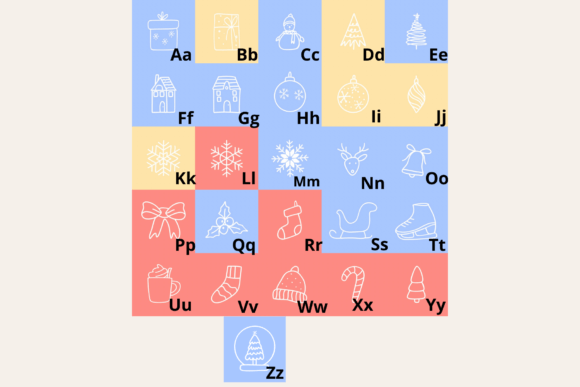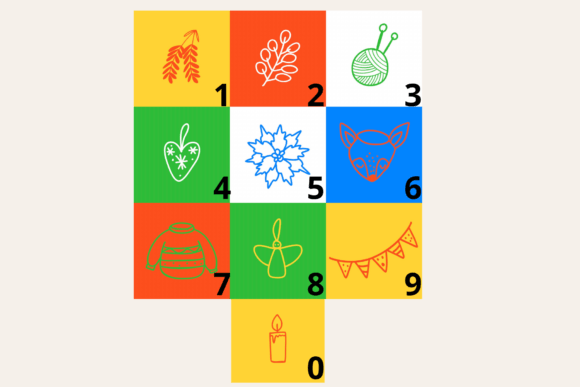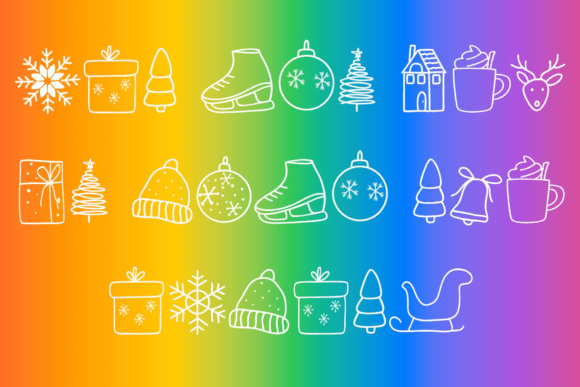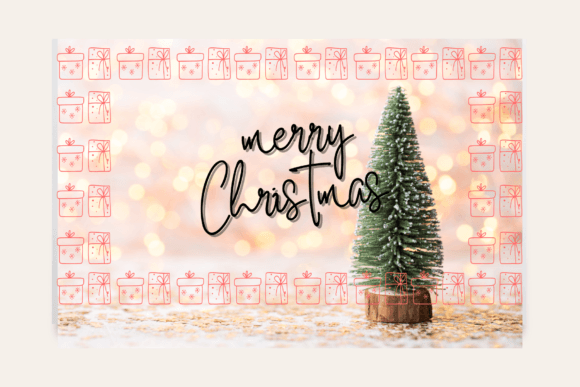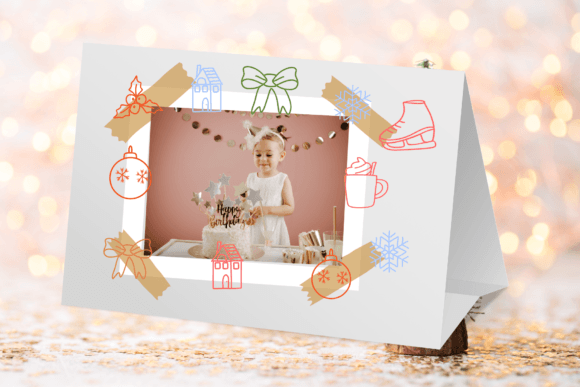
Deck the Halls with Christmas Cheer: Introducing the Christmas Doodle Font
As the holiday season approaches, designers are on the lookout for creative ways to capture the essence of Christmas in their projects. Whether it’s a festive social media post or a beautifully designed invitation, the right font can make all the difference. That’s where the Christmas Doodle Font comes in – a charming, sketch-style font that embodies the magic of the season.
This versatile font is perfect for adding a touch of elegance and class to any design project. From logos and wedding designs to product packaging and social media posts, the Christmas Doodle Font is a valuable tool for designers looking to create visually appealing and festive content. With its unique, hand-drawn style, this font is sure to bring a smile to your clients’ faces and make your designs stand out from the crowd.
- Unique Characteristics: The font features a playful, hand-drawn design with a mix of traditional and modern elements, perfect for adding a festive touch to designs.
- Character Set: The font includes a comprehensive set of characters, including uppercase and lowercase letters, numbers, and punctuation marks, as well as a range of festive symbols and icons.
- Style Options: The font comes in two styles: Regular and Bold, allowing designers to choose the perfect look for their designs.
Designer Review: Christmas Doodle Font
Overall, I’d say the Christmas Doodle Font is a fun and playful addition to any holiday design project. It’s perfect for creating a whimsical and festive atmosphere, especially for things like greeting cards, party invitations, and social media posts. ✨ The font’s doodle-like aesthetic is sure to grab attention and put a smile on people’s faces.
- Fun and playful aesthetic that’s perfect for holiday designs
- Easy to use and versatile for a variety of design projects
- Includes a range of characters and symbols to help create a festive look
However, there are a few limitations to consider. ⚠️ The font may not be suitable for more formal or professional designs, as its doodle-like style can come across as immature or childish. Additionally, the font may not be compatible with all devices or platforms, which could lead to display issues.
I’d give the Christmas Doodle Font 4 out of 5 stars. It’s a great choice for designers looking to add some festive flair to their holiday projects, but it may not be the best fit for more formal or professional designs. With a little creativity and restraint, this font can help create some truly unique and eye-catching designs.
The Christmas Doodle Font is perfect for:
- Creating festive holiday cards and invitations.
- Designing holiday-themed social media graphics.
- Adding a touch of whimsy to holiday party decorations and signage.